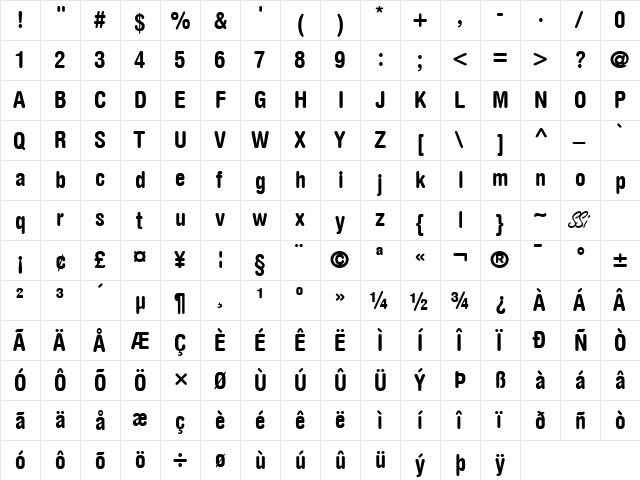
Context Rounded Condensed SSi Bold Condensed Font Preview
Design Context for Context Rounded Condensed SSi Typeface
Context Rounded Condensed SSi uses gentle rounded endings to create a warm, inviting typographic personality — less corporate than geometric sans, more refined than playful display fonts. The heavy weight commands attention and anchors typographic hierarchies.
Well-suited to UI design, mobile interfaces, and any brand that wants approachability without sacrificing clarity.
Font Pairing: Pairs well with a rounded or humanist sans for body copy, maintaining the friendly tone without relying on Context Rounded Condensed SSi to carry extended reading.
Pro Tip: Use Context Rounded Condensed SSi for UI elements, app interfaces, and anywhere a friendly, approachable tone needs to be maintained without sacrificing clarity.